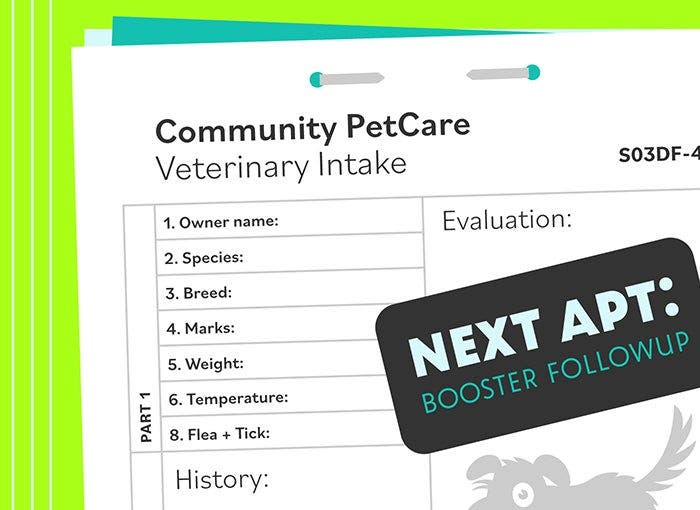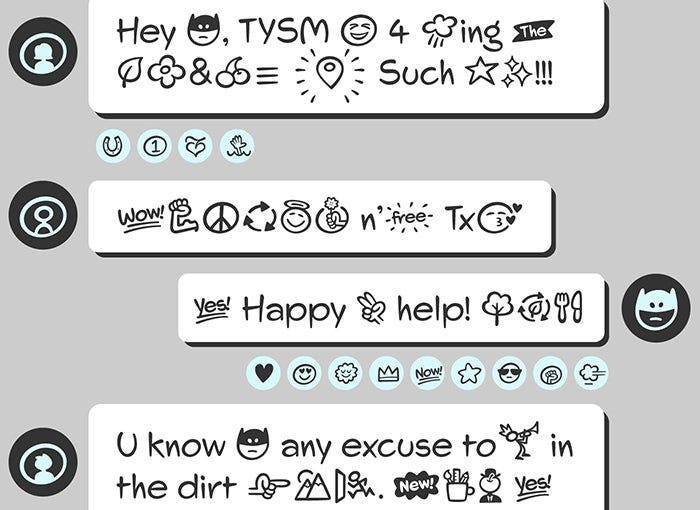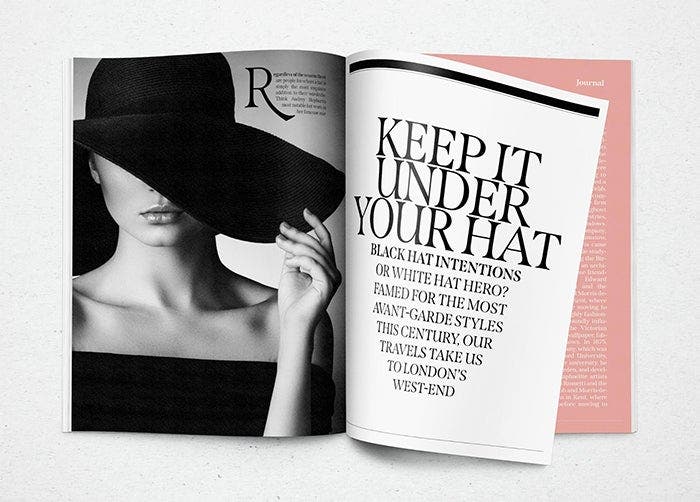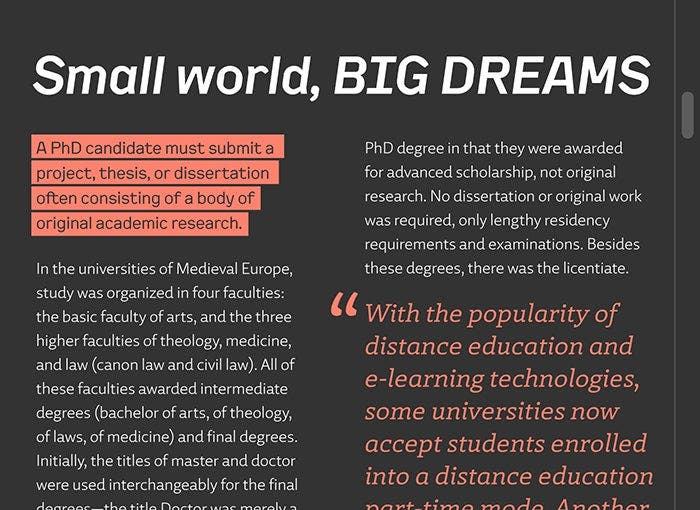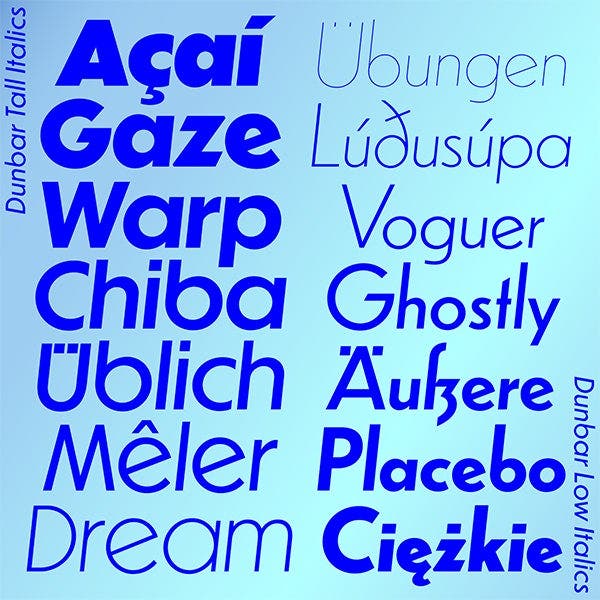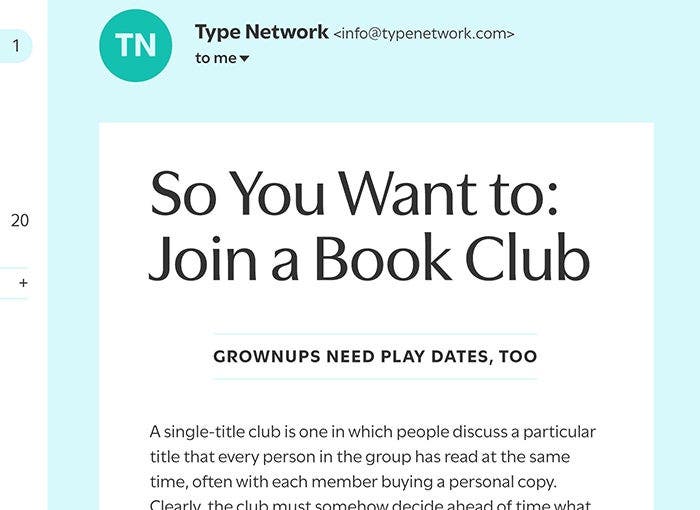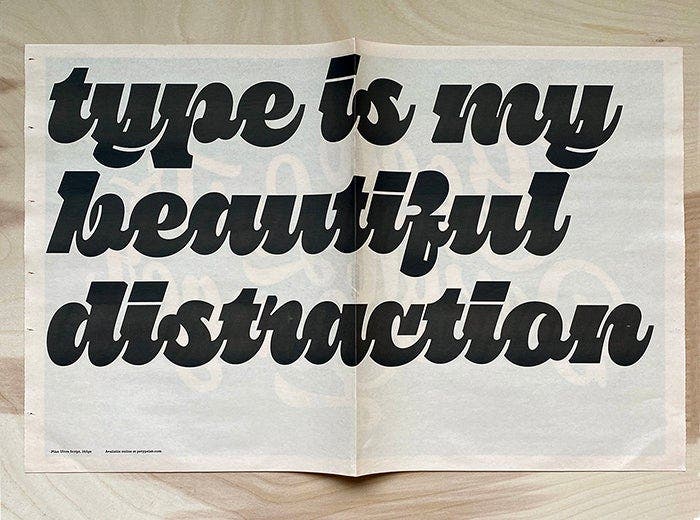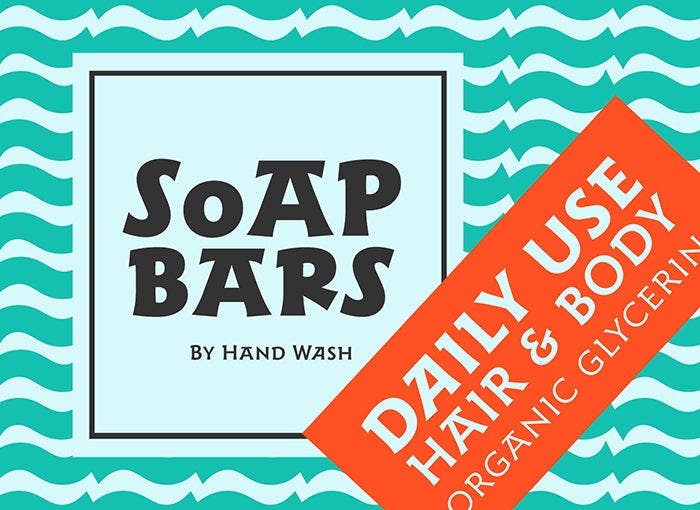
Spring Into Action with Fresh Fonts
Selection of design specimens using new fonts available in the Adobe Fonts library.
Spring is in full swing. It seems like the typographic world has also awakened, because typefaces are popping up on Adobe Fonts like a gazillion blossoms on a cherry tree. Well, not exactly a gazillion, but you’ll have to agree over 1,000 is pretty impressive.
Strap in and get ready to rejuvenate your typographic toolbox with the offerings from no fewer than seven foundries new to Adobe Fonts (including two from Type Network), and a total of 122 new type families and six expanded families — all already licensed and included with your Creative Cloud subscription.
Start your week with Bold Monday
Inspired by New Order’s iconic 1983 hit — the best-selling 12-inch single of all time — Dutch type designers Paul van der Laan and Pieter van Rosmalen banded together as Bold Monday. While they release both their own work and fonts from a select group of collaborators, the independent foundry’s initial offerings on Adobe Fonts are two type families from its founders.
Wait until you discover the cute dog icons Dirk Uhlenbrock added to Bilo’s character set! Illustration guest starring Oskar in the black sticker.
The happy-go-lucky Bilo is Pieter’s answer to the sanitized, “neutral” sans serifs flooding the market. Incorporating subtle hints of vintage grotesque types, the typeface has bite and expresses a hint of quirk in its robust letterforms. Personable in large sizes and serviceable when used small, its more showy characters can be toned down by activating stylistic variants.
Pieter mined early 20th century Dutch architectural and commercial lettering for inspiration during the development of Oskar. Cameo by a Bilo dog illustration.
Oskar is an all-caps titling face in plain and inline finish and two variants. Oskar One’s sharp apexes and expressive letterforms reveal its Art Deco roots; Oskar Two is more reserved and versatile. The stately capitals lend confidence and class to headlines, titles, and logos, in print and on screen as well as on brick and mortar.
Retype revisits classics and rethinks modern types
Retype founder Ramiro Espinoza dons two hats—one of a type historian researching Dutch vernacular lettering and historical faces and updating them for today, and one of a type designer examining the current state of graphic design and creating original typefaces for contemporary users. Retype launches on Adobe Fonts with six type families.
Lavigne has both text and display cuts with letterforms optimized for small and large type, respectively. It combines well with Winco and Tasman, also featured in the illustration above.
Try Lavigne if you are looking for a serif typeface that is warm and approachable. Its graceful calligraphic letterforms infuse editorial design, advertising, and more with a supple elegance. Built according to humanist principles, Winco offers excellent reading comfort in long-form text, while striking design details reveal themselves in larger sizes.
Tasman’s original purpose as a newspaper type influenced its proportions and look considerably — the goal was to keep the personality as warm and playful as possible while preserving a credible, trustworthy tone.
Kade is the Dutch word for “quay,” a reference to the ports of Amsterdam and Rotterdam where David Quay found the inspiration for his design and the name of its designer. Laski Slab and Laski Sans pair up as a complete typographic solution for complex design projects.
The Laski Slab and Laski Sans siblings are a comprehensive suite of fonts conceived for editorial purposes and corporate communication. Their humanistic construction and subtle calligraphic details lend it a friendly appearance, with round, open letterforms and generous horizontal proportions that make them easy to read.
From the mind of ’90s type design icon David Quay, the display family Kade references industrial letters cut from large steel plates found on the side of ships. Its constructed character is ideal for contemporary editorial works, architecture magazines, museum communication, and posters.
MVB Fonts introduces its comprehensive collection
MVB Fonts, the brainchild of Mark van Bronkhorst, was founded almost 30 years ago in 1991. The custom fonts Mark and his team develop for magazines and corporations inform the commercial typefaces they create for designers, and vice versa.
MVB offers a series of eminently legible text faces. Steeped in tradition, MVB Verdigris Pro is an exquisite serif face delivering outstanding typographic color to text for immersive reading. The sans serif MVB Solitaire Pro captures 21st century neutrality without becoming banal, and lives to serve one thing first: the text, the content. MVB Dovetail’s tone is crisp and straightforward, with classic letterforms set off with a touch of playfulness, giving the design both a practical and spontaneous personality. The slab serif MVB Fantabular and sans serif MVB Fantabular Sans siblings are a playful duo inspired by the letterforms of older typewriters, proving that monospaced faces needn’t be formal nor bland.
Chowdown’s sketched look is made for these times.
Finally, Chowdown is the most recent picture font, released just last year. Tucker Nichols’ 62 drawings have an “unfinished” finish, making them perfectly in tune with the current trend of hand-made design and typography — see also Handmade Humanism in our article “4 Design Trends That Will Define 2020.”